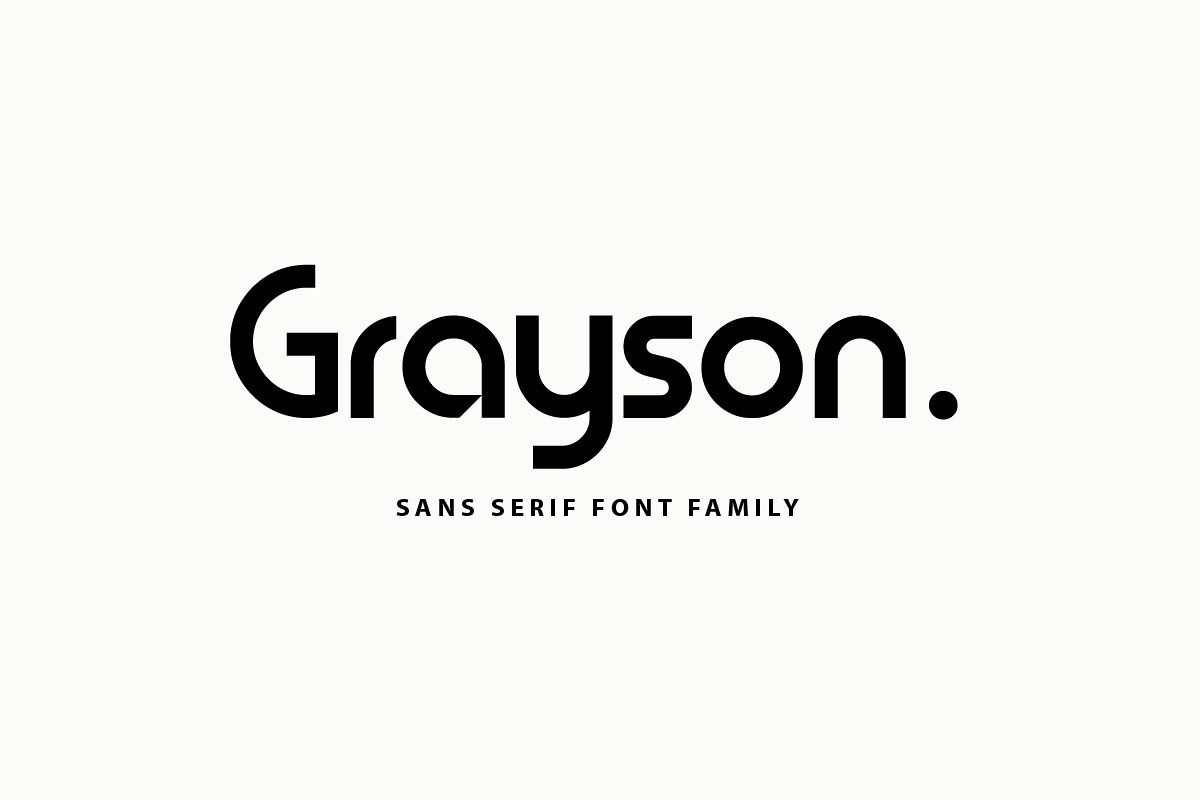
Grayson.
Grayson - sans serif fonts family
is a balance of hard lines and smooth curves ( built from basic circle), modern touch and dynamic
PERFECT FOR USE
Grayson  works great in any branding, logos, magazines, films. The different weights give you full range to explore a whole host of applications,